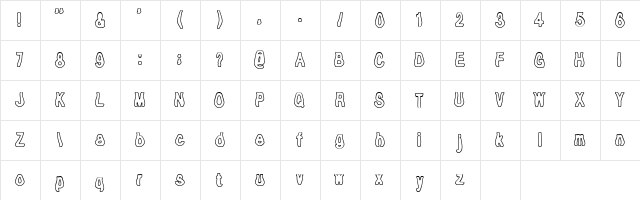
Tioem-Open Regular
Design Context for Tioem-Open Typeface
Tioem-Open is a composed and adaptable typeface that performs quietly and consistently across a wide range of design contexts.